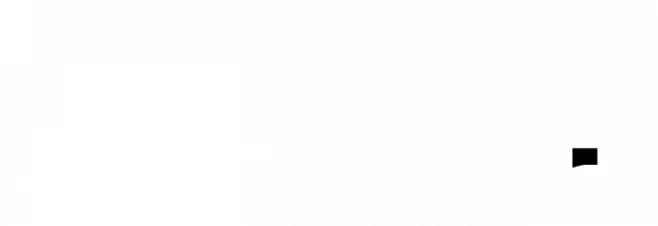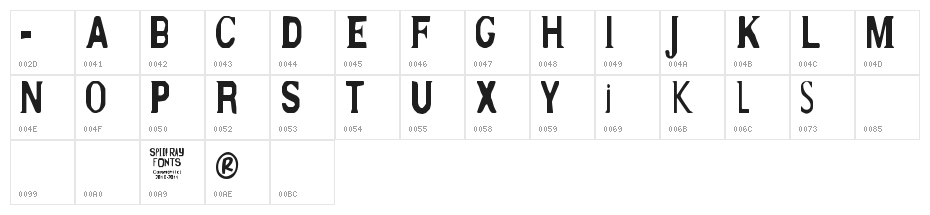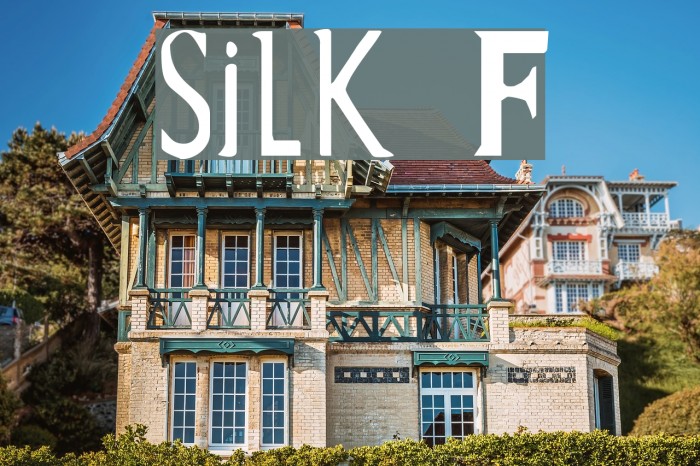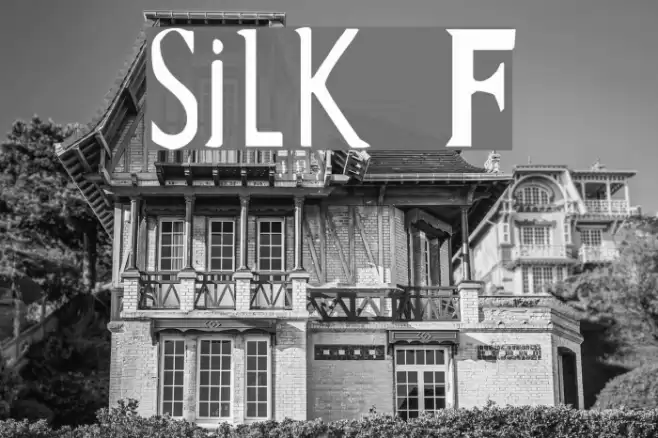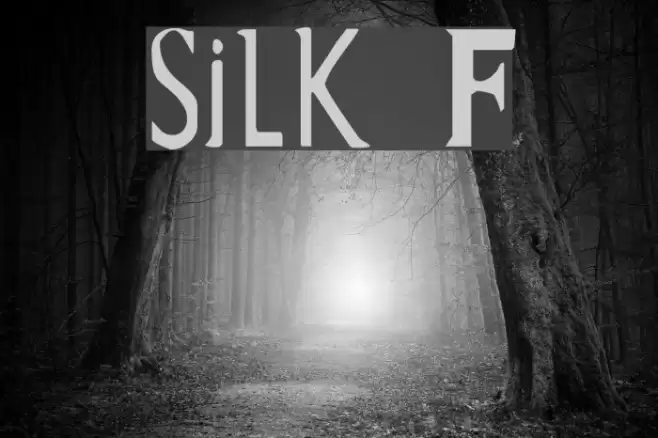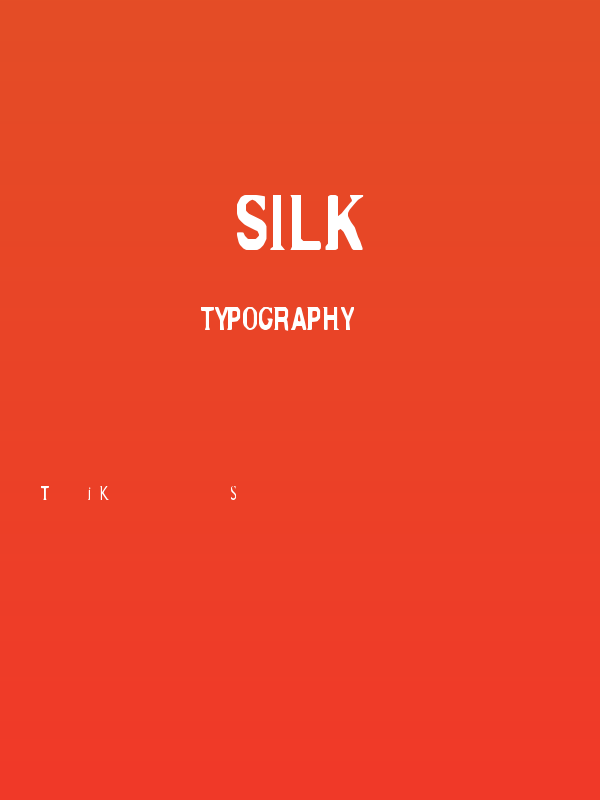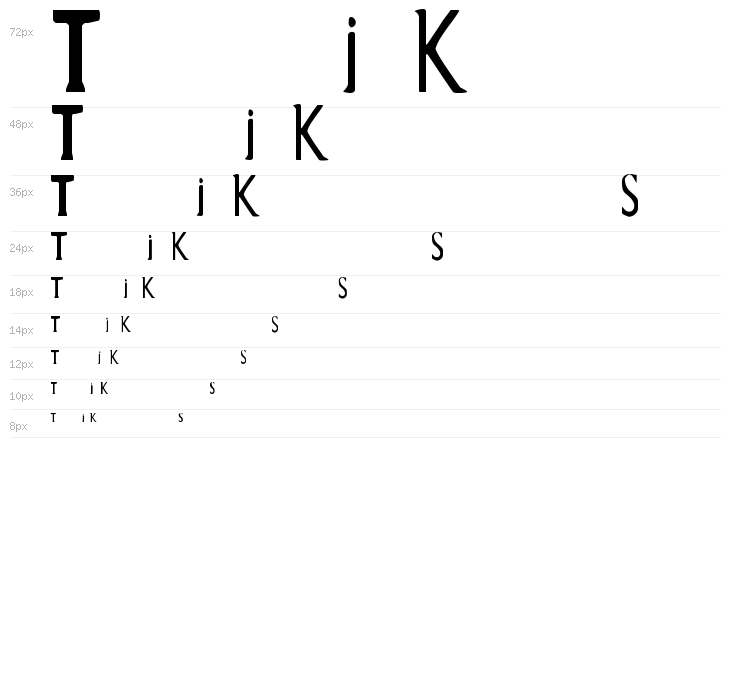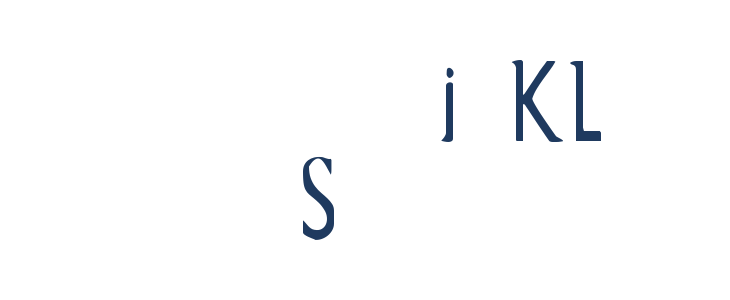
silk Font
silk Description
This font features a bold and striking design with a strong presence. The uppercase letters are characterized by their thick, angular strokes and sharp edges, giving them a commanding appearance. The lowercase letters maintain a similar style, with a slightly more condensed form. The numbers and special characters are consistent with the overall bold aesthetic, ensuring uniformity across all glyphs. This font's unique style makes it suitable for projects that require a strong visual impact.
| Proposed Projects | Ideal for headlines, posters, branding, and any design requiring a bold statement. |